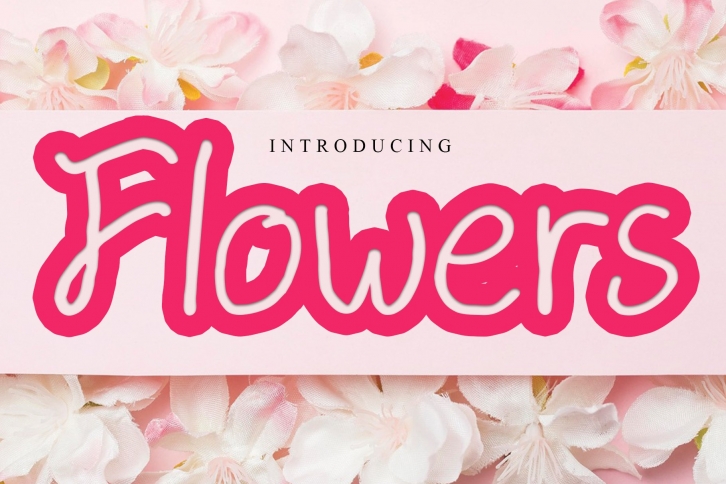
Flowers is a trendy and unique font with an authentic style. It was designed by Giart Studio and it's a great choice for creative people who need such a font. It was released on November 2, 2020 and the file size is 14.49 MB. Flowers will add an organic vibe to any design idea!